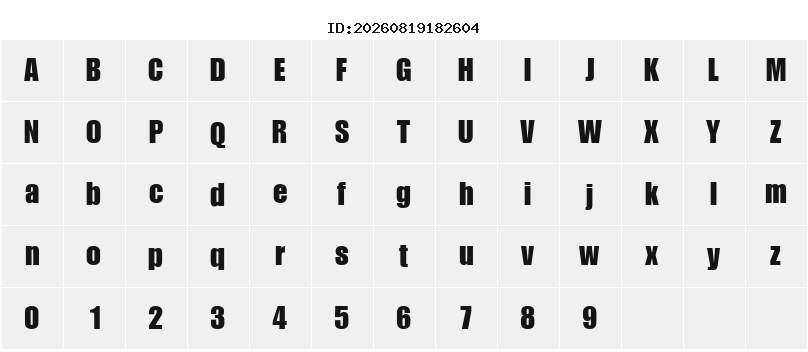
Short Haul SSi Preview
• Font Name: Short Haul SSi
• Full Font Name: Short Haul SSi
About Short Haul SSi.ttf
Short Haul SSi.ttf is a modern, elegant sans-serif font designed for ultimate readability and visual harmony. Perfect for branding, headlines, web design, and print materials.